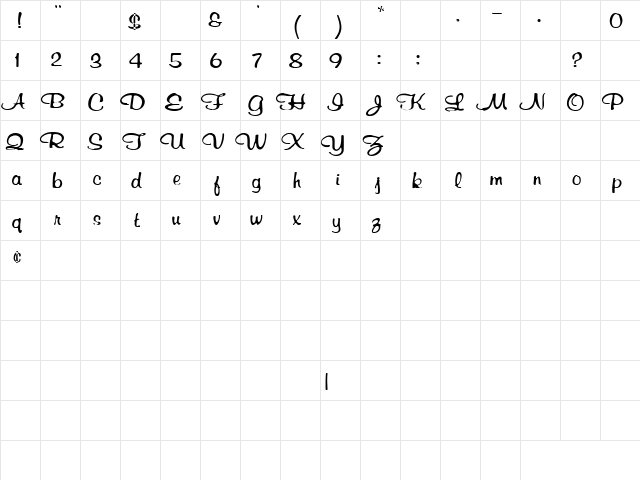
Demented 2 Regular Free Font
Demented 2 Regular
Design Context for Demented 2
Demented 2 is a composed and adaptable typeface that performs quietly and consistently across a wide range of design contexts.